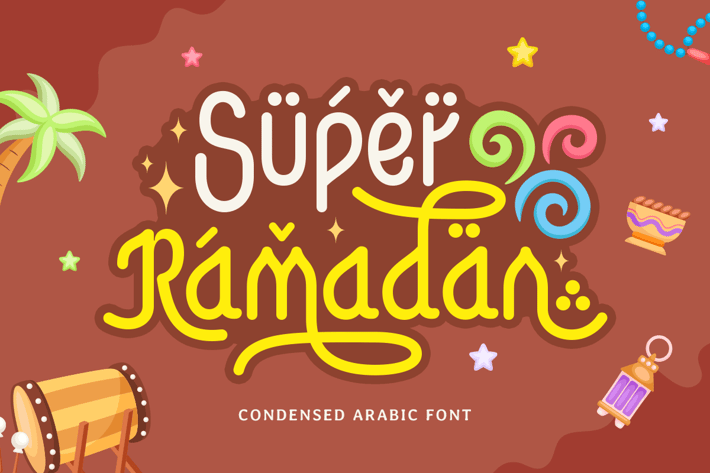
Super Ramadan - Condensed Arabic Font
Bold and Stylish for Ramadan Creations
Super Ramadan is a condensed Arabic font crafted to bring a bold and striking touch to your Ramadan-themed projects. Its sleek design and compact form make it perfect for impactful and creative designs.
Perfect for Festive and Modern Projects
From banners and posters to greeting cards and social media content, Super Ramadan adds a contemporary flair while maintaining cultural authenticity. It’s ideal for making your message visually unforgettable.
A Harmony of Tradition and Modernity
Super Ramadan balances the elegance of Arabic script with a modern condensed style. It’s designed to inspire creativity while celebrating the essence of Ramadan through typography.
Super Ramadan - Condensed Arabic Font Features:
Alternates Characters Ready
Punctuation, Number, and Symbol
* Opentype Features